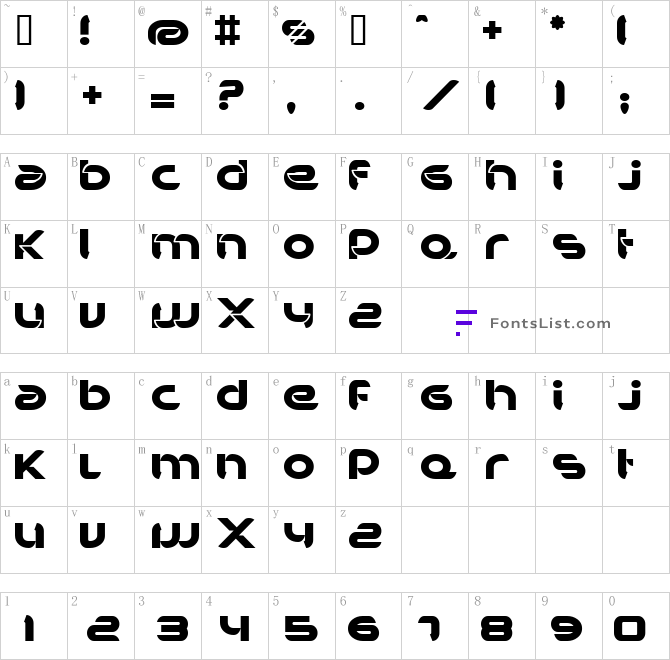
- Font Name:BD Bankwell
BD-Bankwell.ttf is a very beautiful artistic font, BD-Bankwell.ttf is widely used in the design and printing of various books and pictures,BD-Bankwell.ttf has a strong visual impact,BD-Bankwell.ttf is a commonly used font in newspapers, magazines and books, and is used in posters, e-commerce Poster design, store design, logo design, font design and other fields.BD-Bankwell.